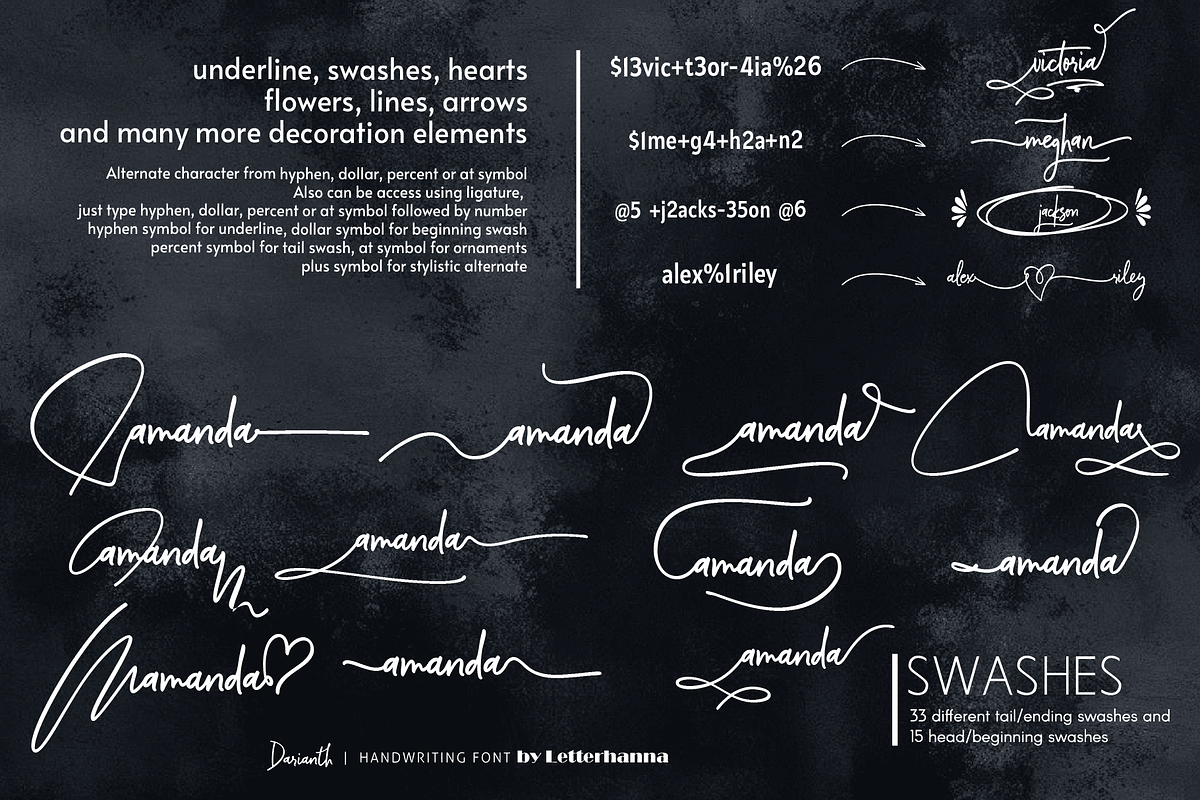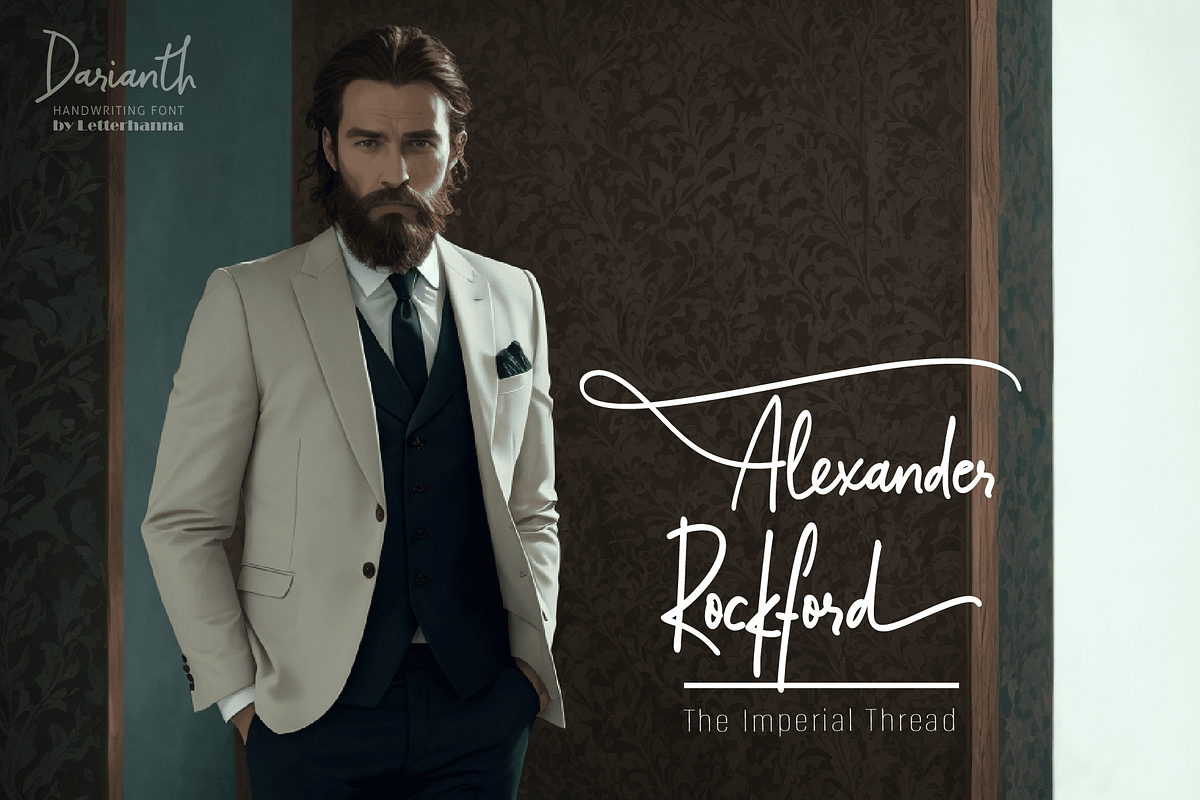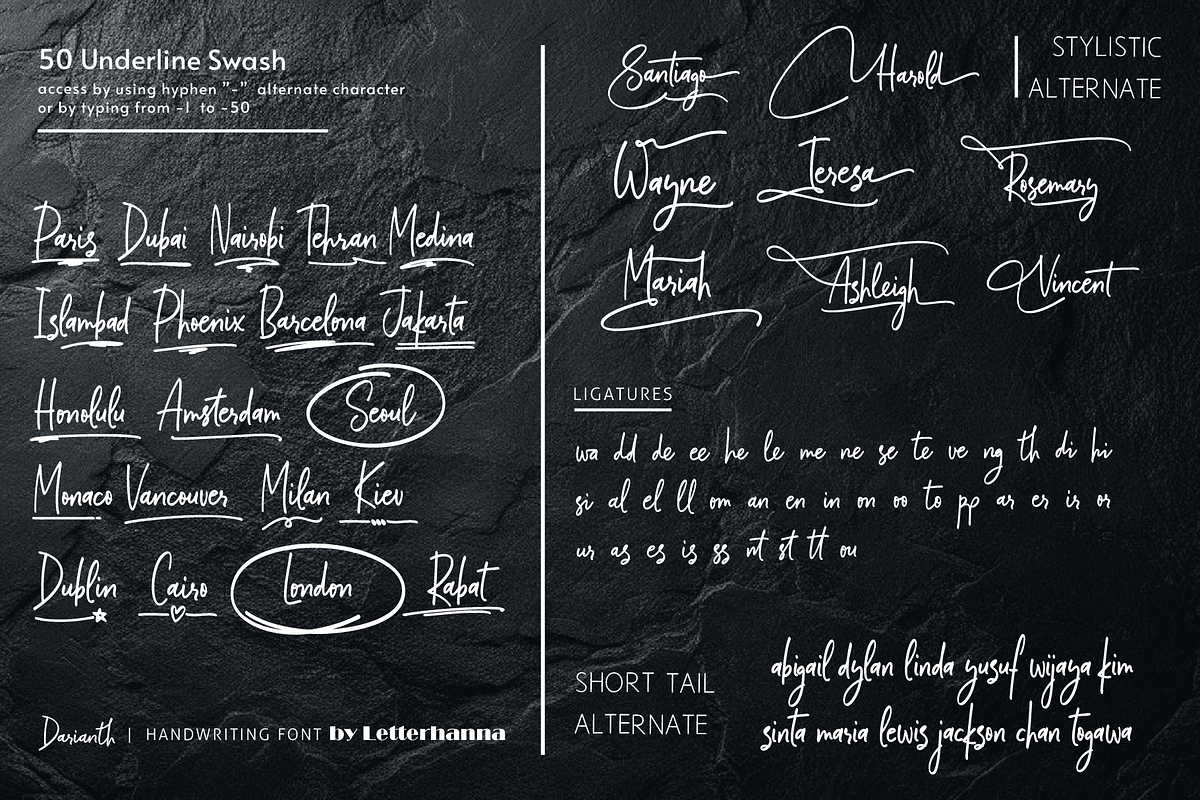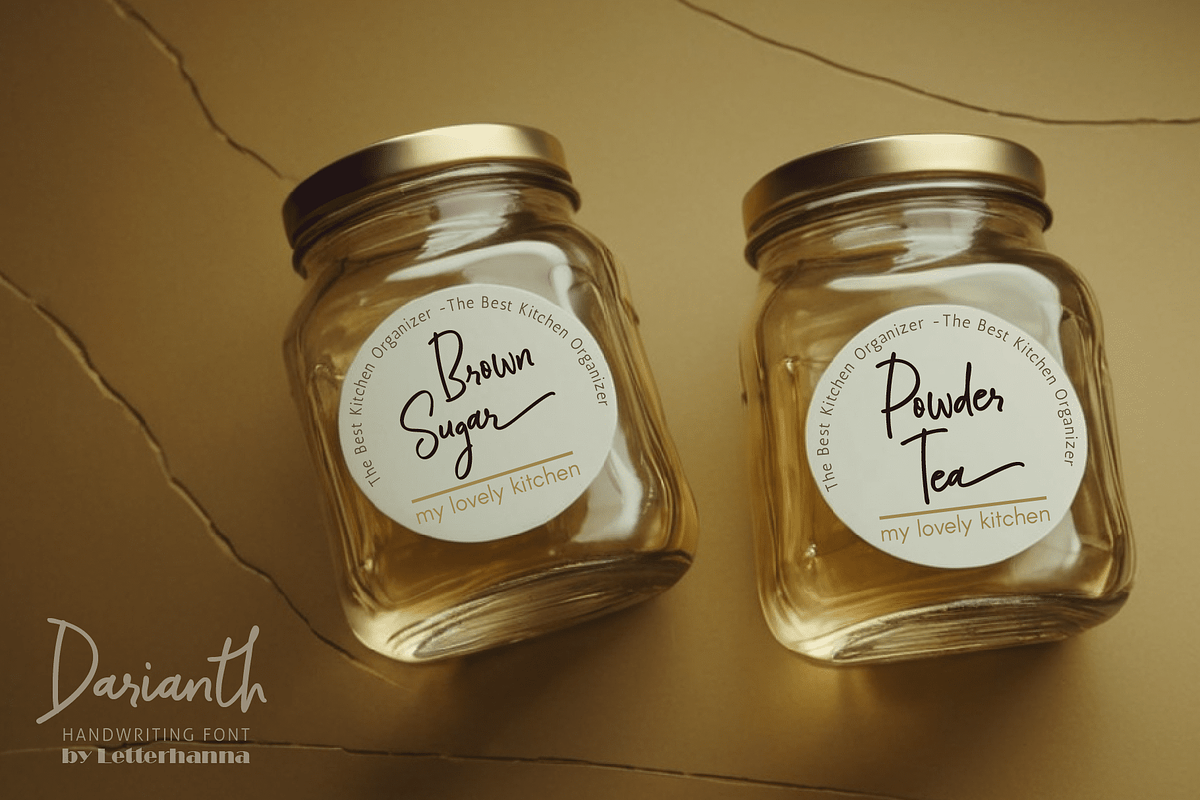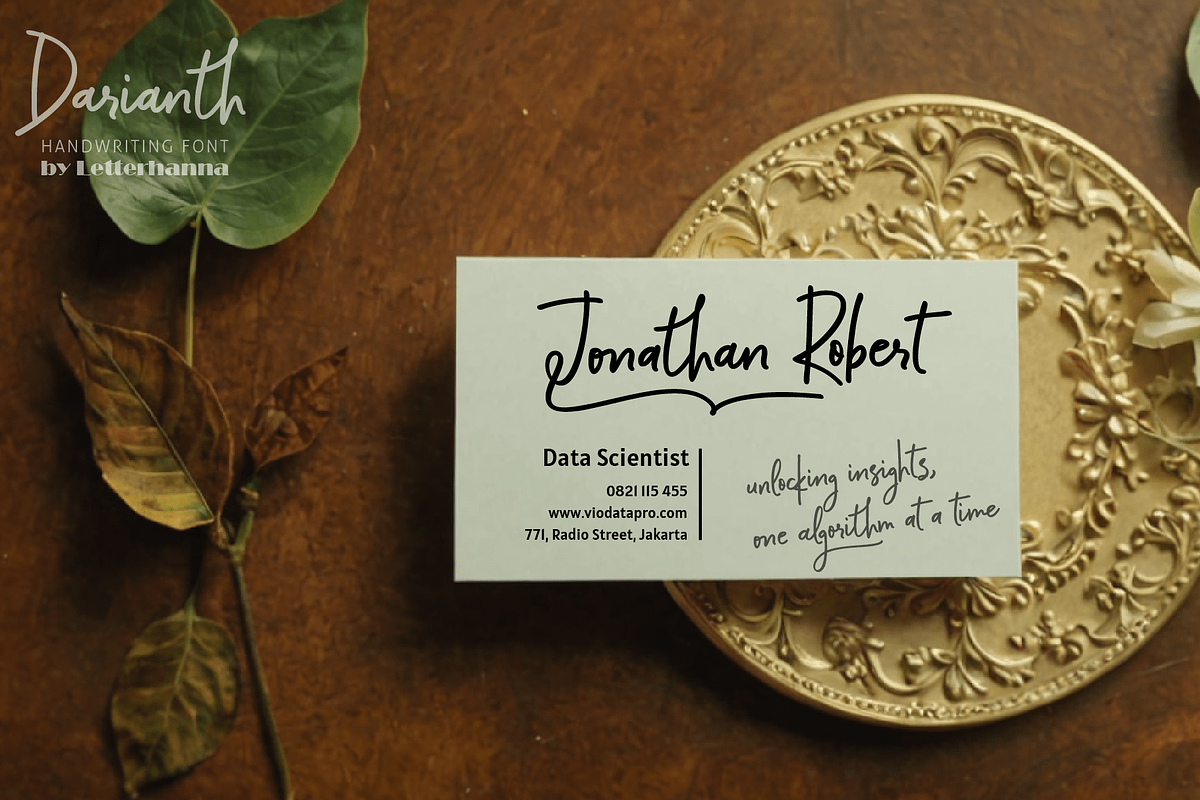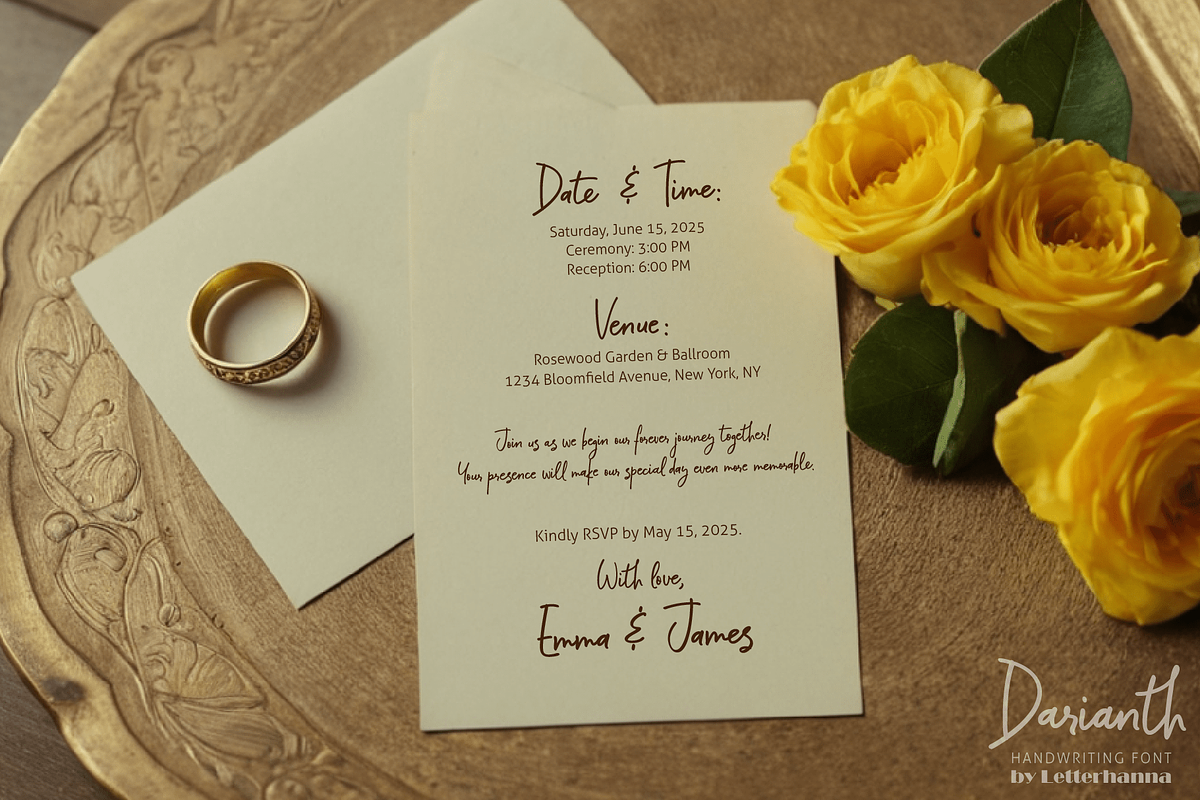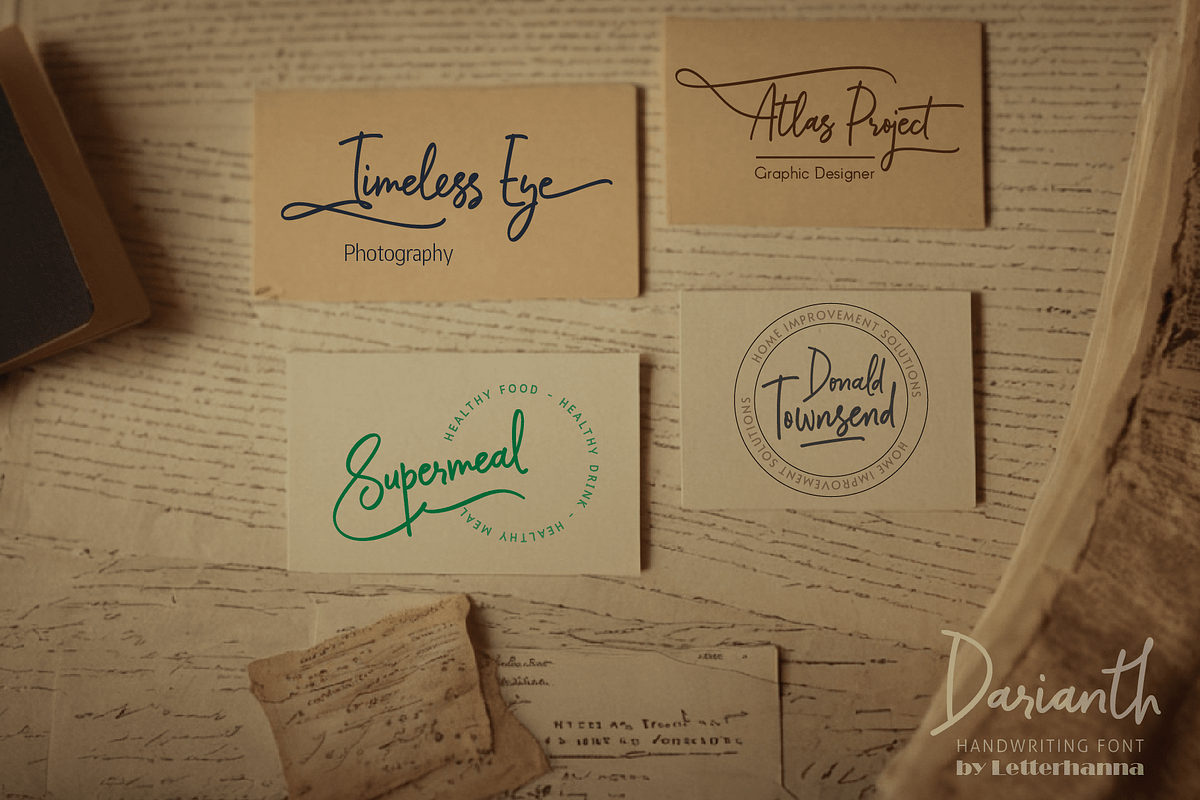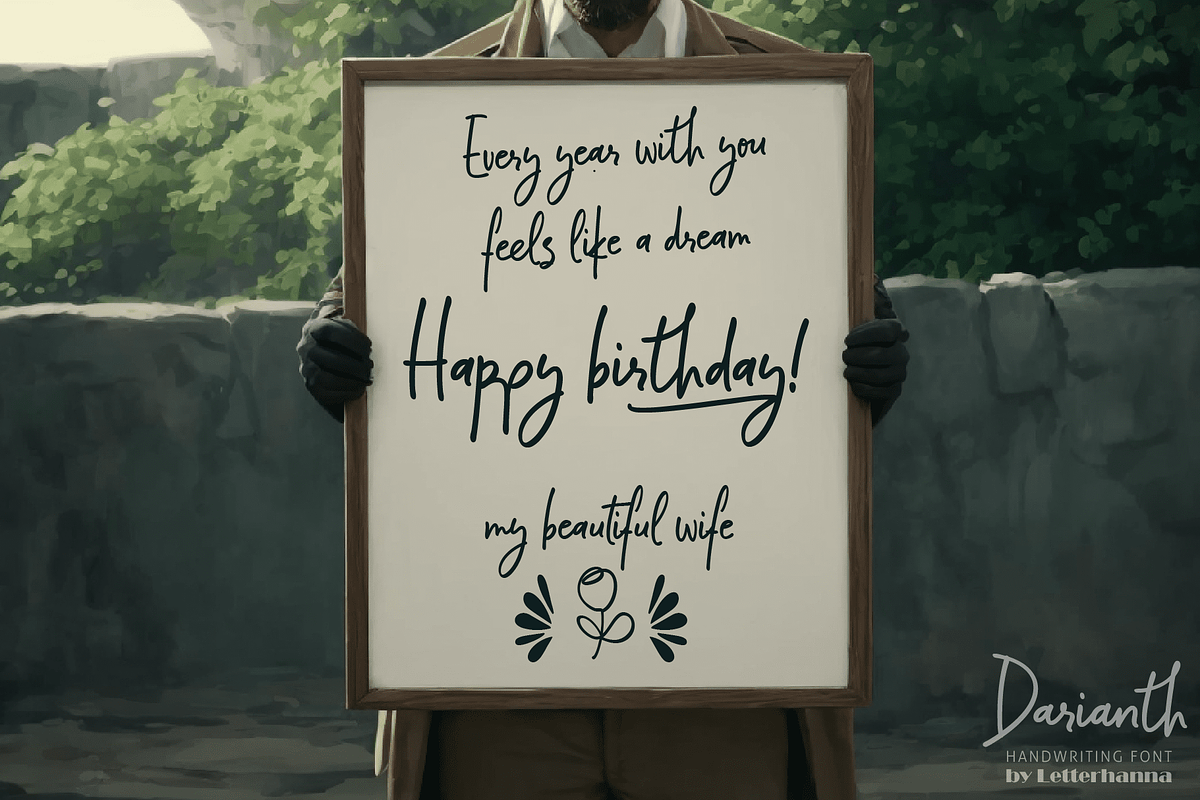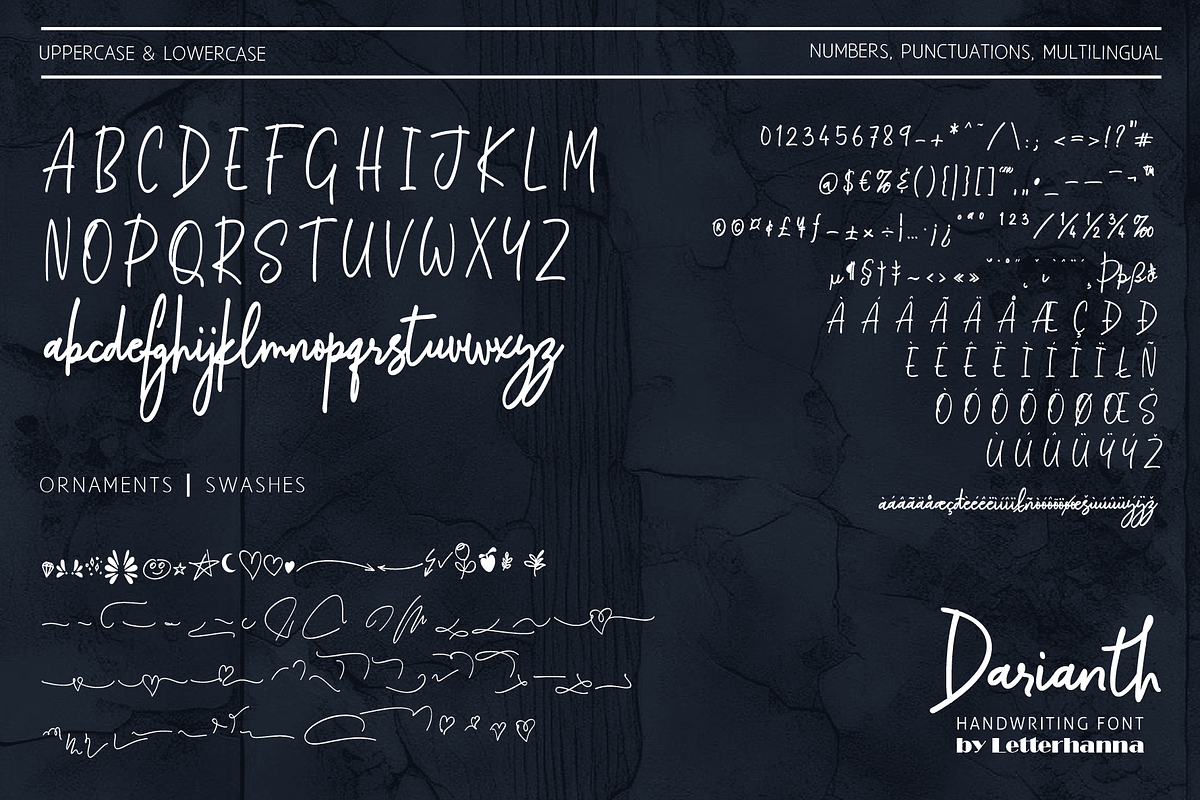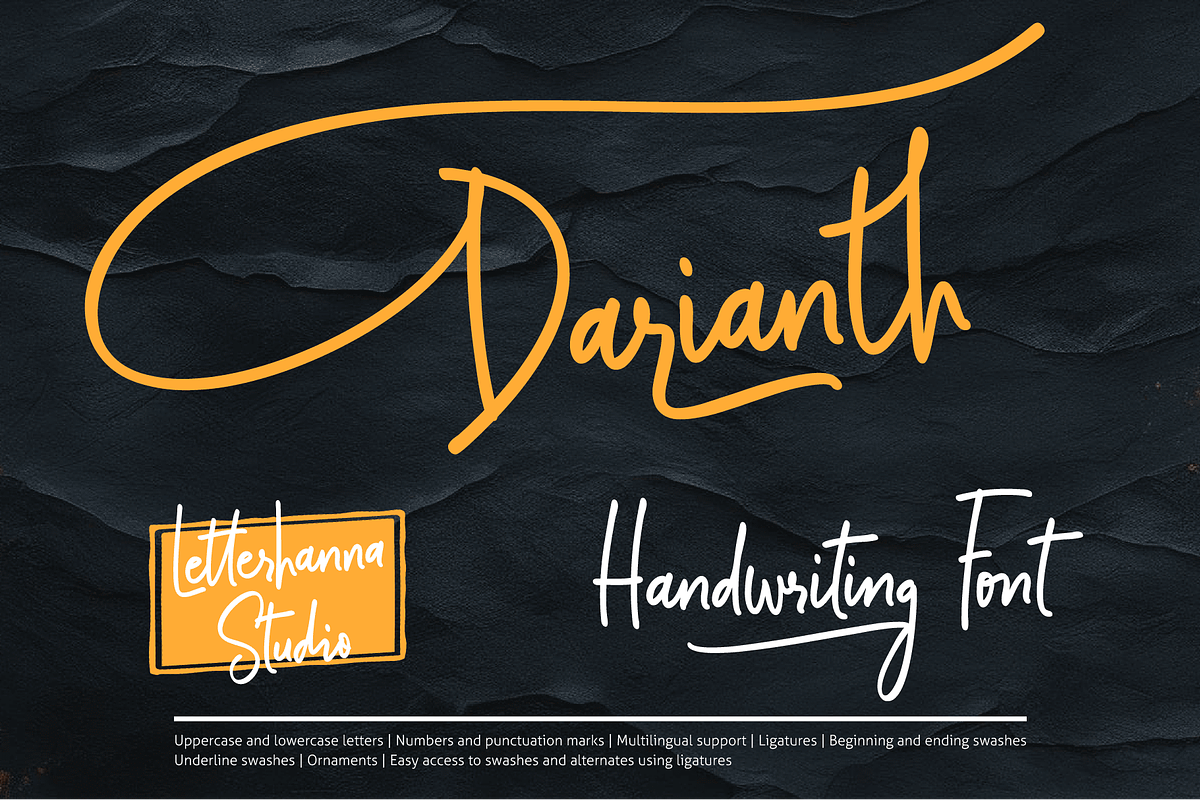
Darianth Handwriting Font
Introducing Darianth Handwriting Font, a beautifully crafted script font designed to bring elegance and fluidity to your projects. With its natural flow and expressive strokes, this font captures the charm of handwritten artistry while maintaining a refined, modern feel. Every letter is thoughtfully designed to ensure smooth connections, making it perfect for branding, invitations, packaging, and editorial design.
Darianth Handwriting Font is enriched with an extensive set of stylistic alternates, swashes, and ligatures, allowing endless creative possibilities. Whether you're looking for a graceful signature look or a bold statement, this font adapts effortlessly to your vision. Elevate your typography with its dynamic letterforms and make every word stand out with sophistication.
Easy Access to Glyphs and Swashes
Accessing Swashes and Ornaments
Underline Swashes: Use a hyphen symbol "-" followed by a number between 1 and 50. For example, -type "-3", "-22", or "-17" to get various underline swashes.
Head/Beginning Swashes: Use a dollar sign "$" followed by a number between 1 and 15. For example, type "$2" or "$8" to get different head/beginning swashes.
Tail/Ending Swashes: Use a percent sign "%" followed by a number between 1 and 33. For example, type "%3" or "%15" to get various tail/ending swashes.
Ornaments: Use an "at" symbol "@" followed by a number between 1 and 21. For example, type "@4" or "@13" to get different ornament.
Uppercase and lowercase letters
Numbers and punctuation marks
Beginning and ending swashes
Underline swashes
Ornaments